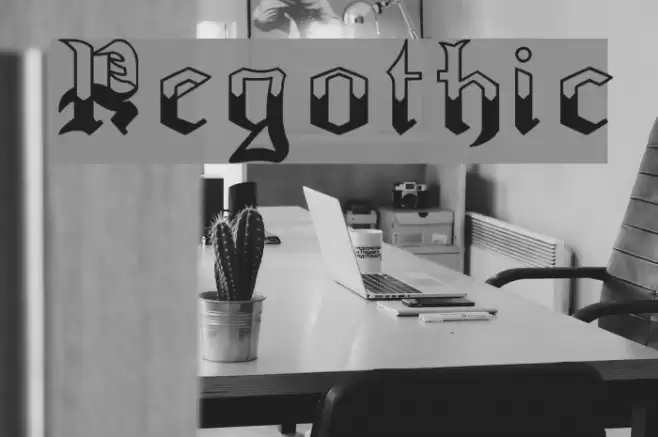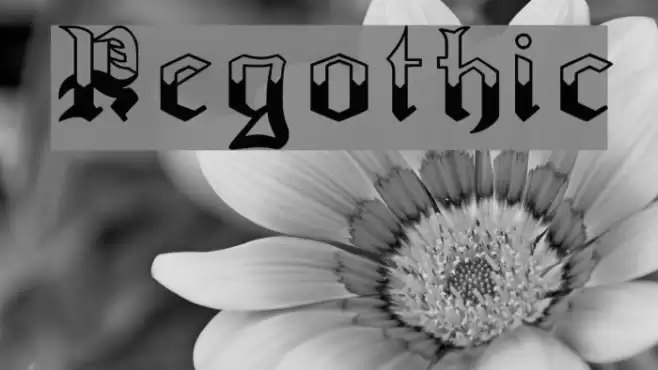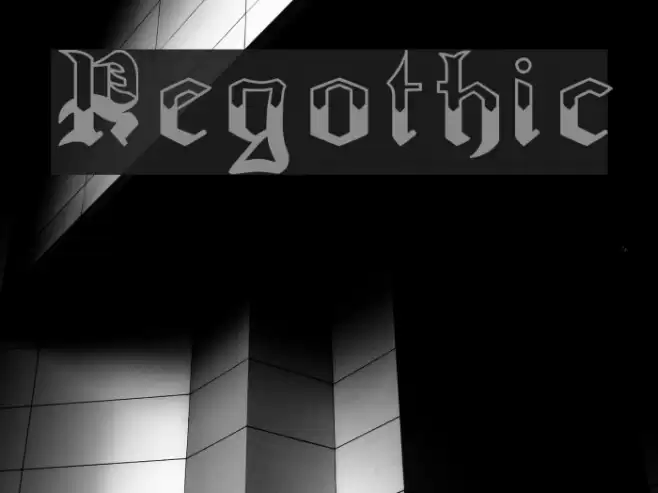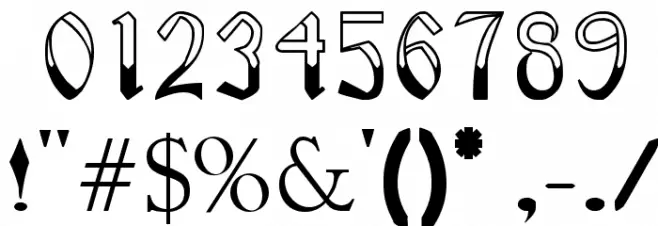
Regothic Font
Regothic Description
This font features a bold and intricate design reminiscent of traditional Gothic script. The characters are ornate with sharp, angular lines and elaborate serifs, giving them a distinct medieval appearance. The uppercase letters are particularly decorative, with embellishments that enhance their dramatic flair. The lowercase letters maintain the same stylistic elements but are slightly more subdued. Numbers and special characters follow the same ornate style, ensuring consistency across the font. This font is perfect for projects that require a historical or fantasy theme, adding a touch of elegance and complexity.
A bold, ornate Gothic-style font with intricate details and sharp lines from Gothic fonts.
- Proposed Projects: Ideal for historical or fantasy-themed projects, book covers, posters, and branding that requires a dramatic and elegant touch.
- Overall Style: Vintage
- Use Case: Headlines, Logos, Decorative text